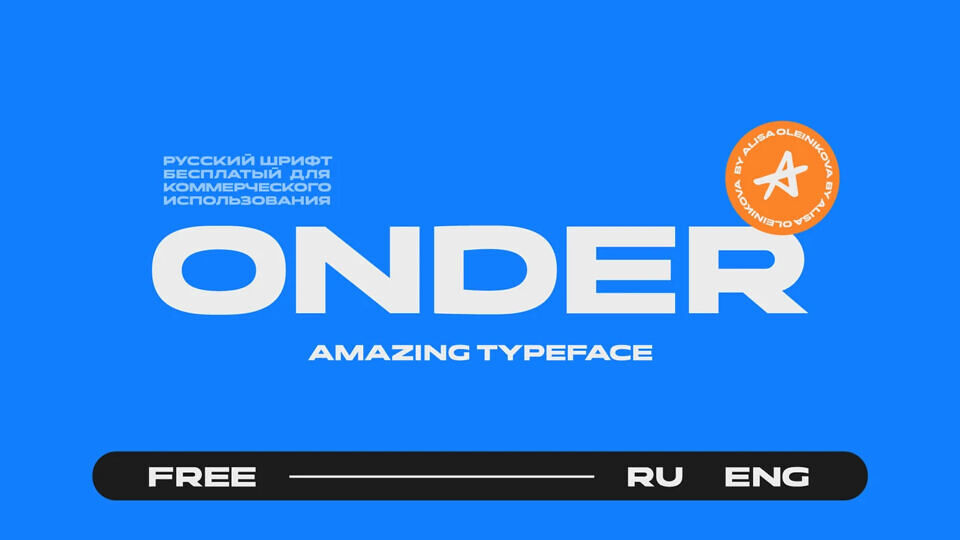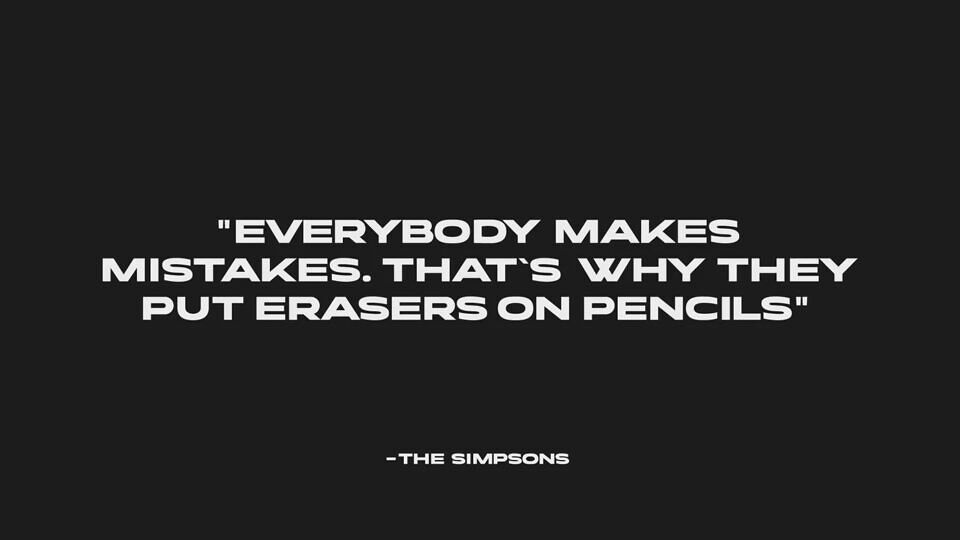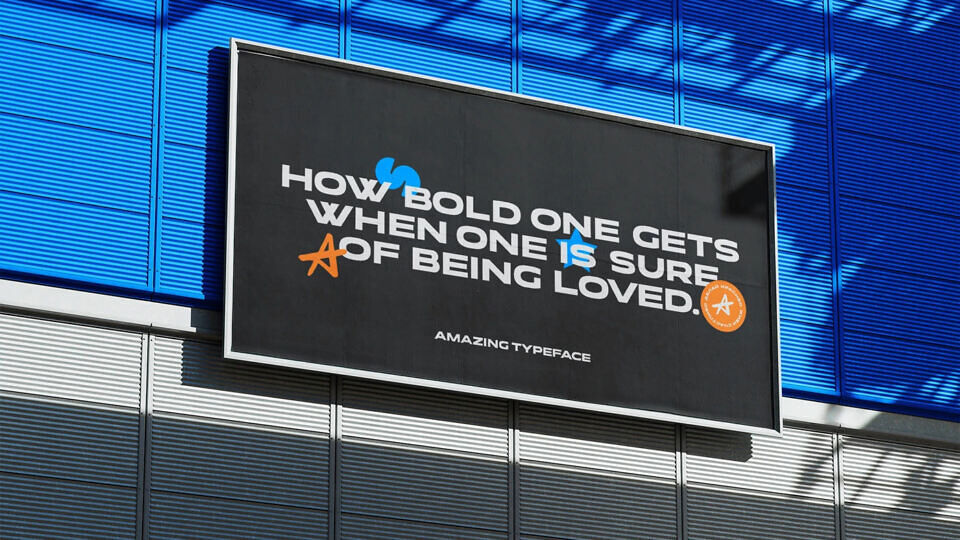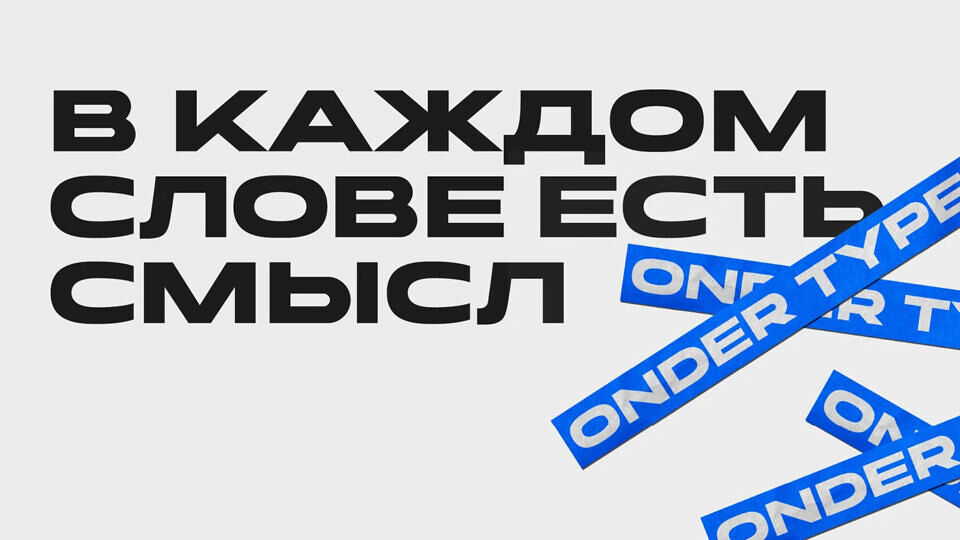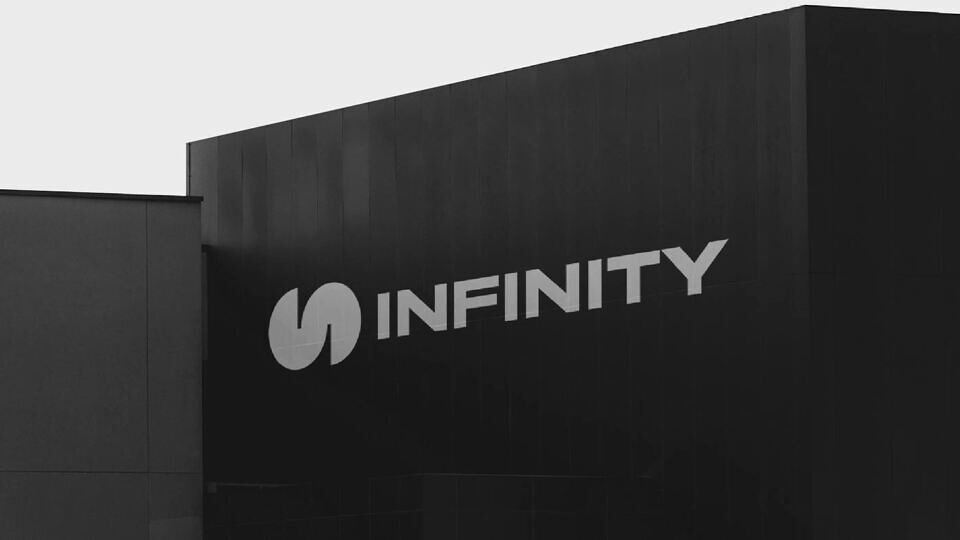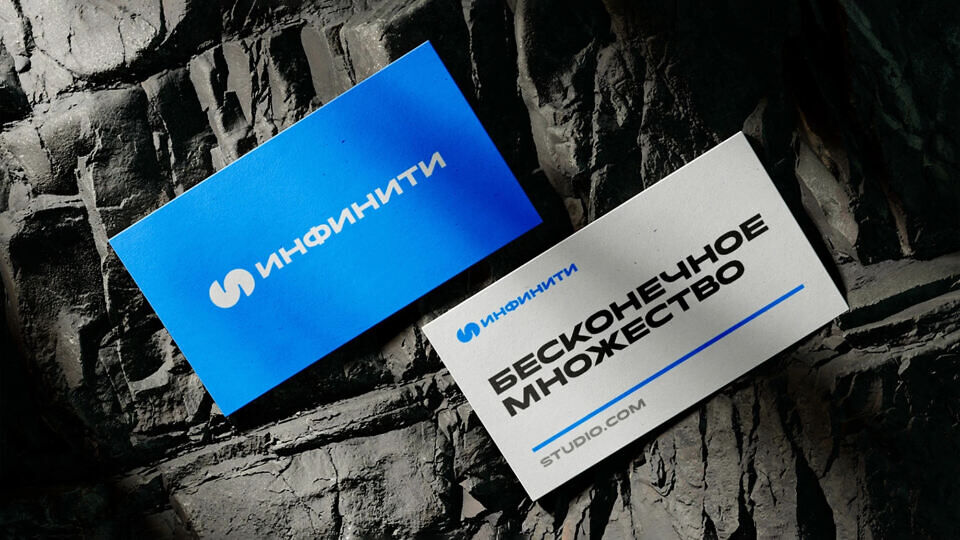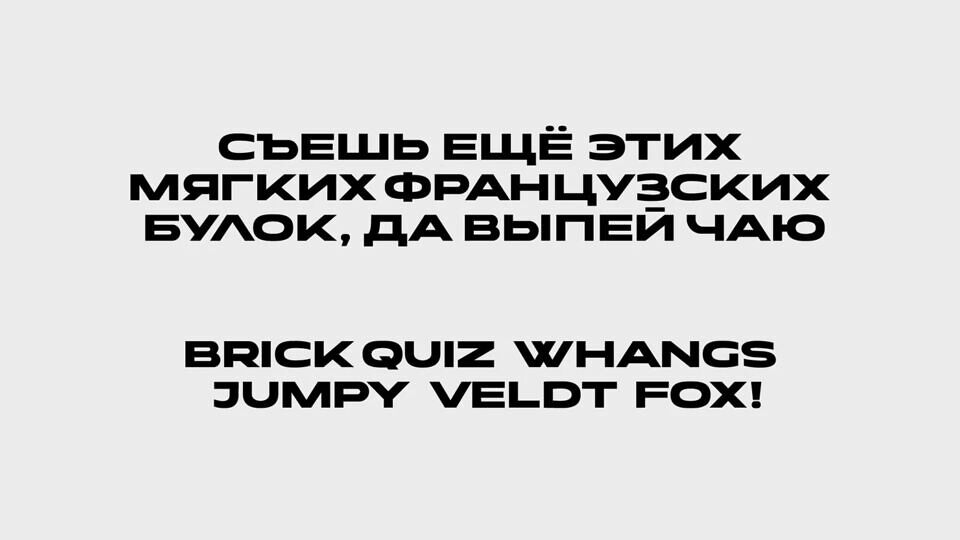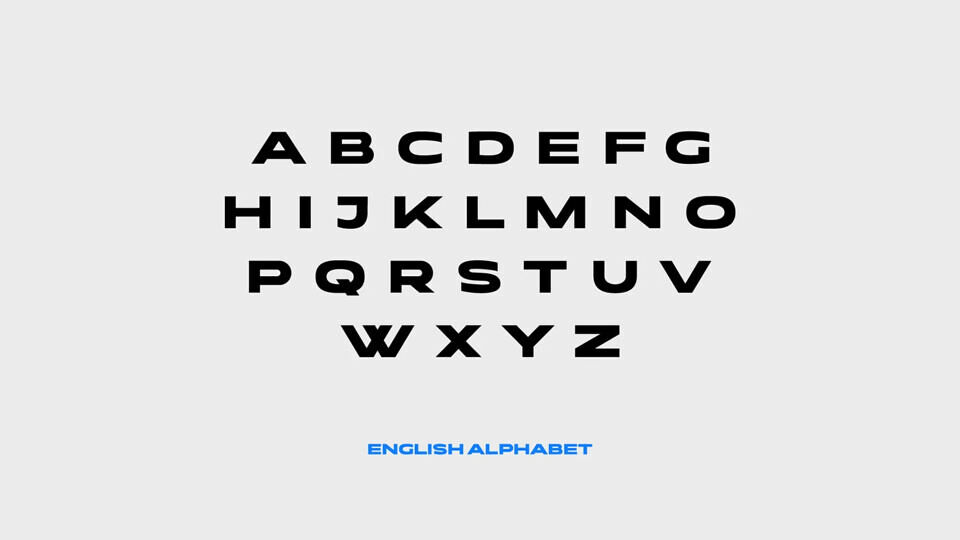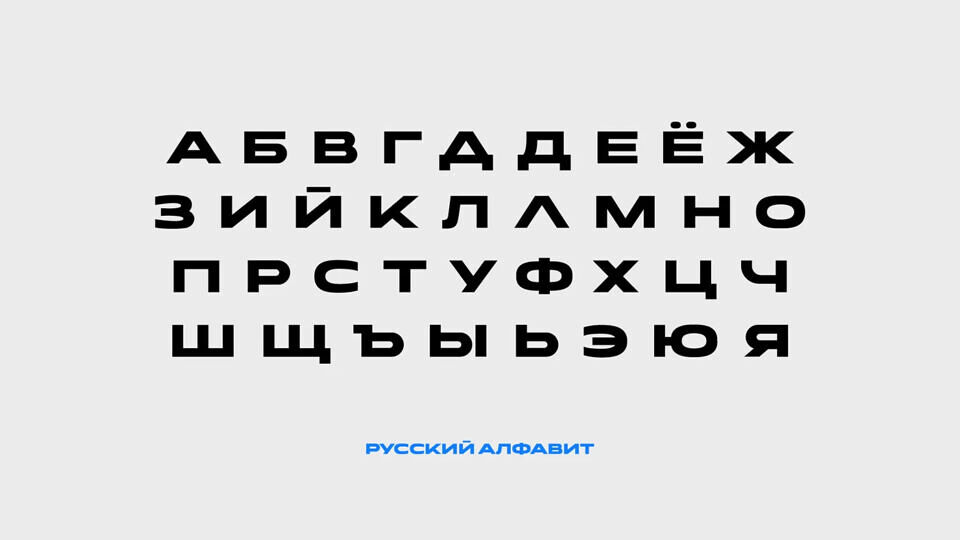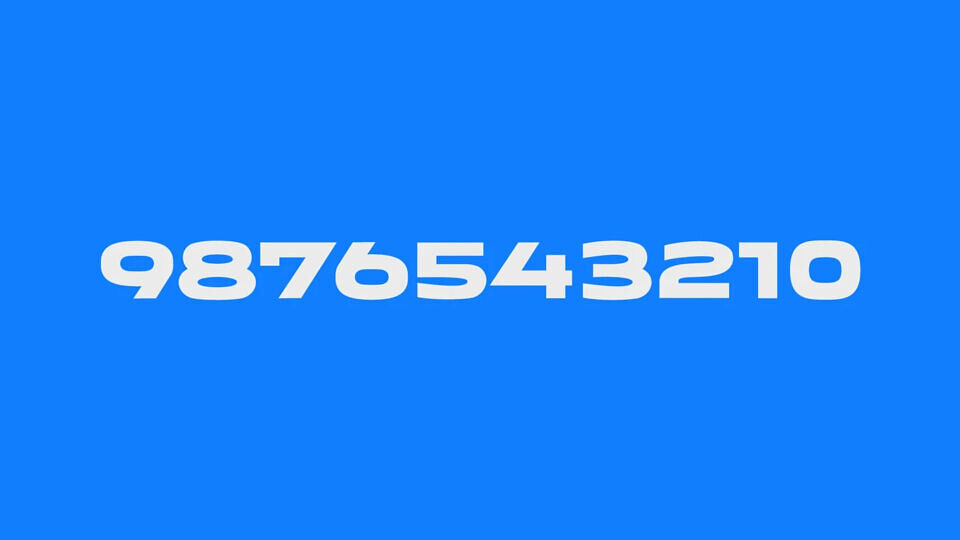
Onder, created by Alisa Oleinikova, is a bold and modern display typeface perfect for impactful headings, logos, and creative graphic design projects.
Its sharp, geometric style stands out in both Latin and Cyrillic scripts, offering versatility across diverse visual compositions. Ideal for branding, posters, and digital media, Onder adds a strong visual identity wherever it’s used.